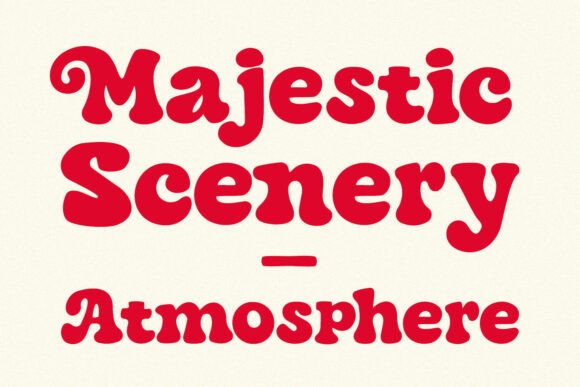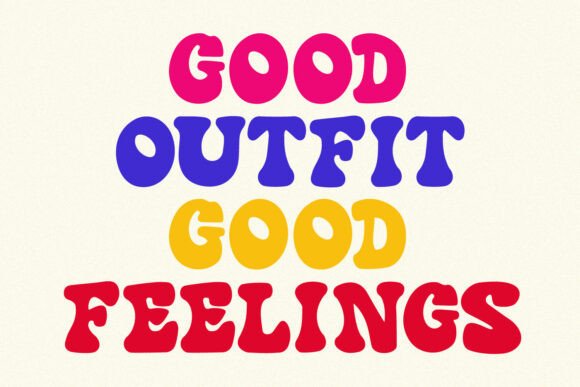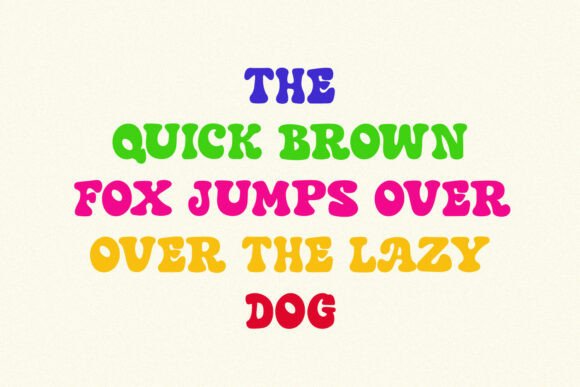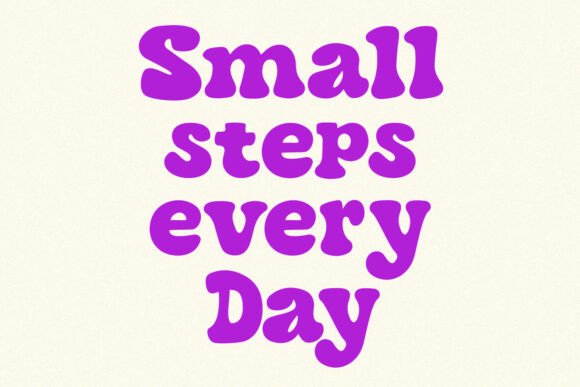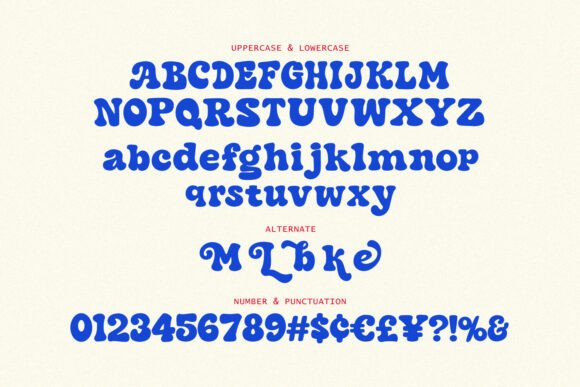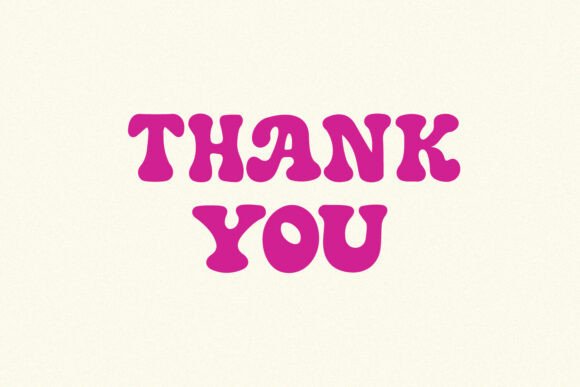
Introduction to Mie Lobak Font
Step back into the groovier days with Mie Lobak, a playful retro slab serif font designed to bring a burst of nostalgic energy to your creative projects.
Crafted by Maulana Creative, this font features thick, chunky strokes and whimsical curves that capture the fun and funk of the 1960s and 70s Its bold, high-contrast personality makes it perfect for eye-catching headlines, vintage posters, trendy designs, and brand identities that donโt take themselves too seriously.
Key Features of Mie Lobak Font
Why Choose Mie Lobak Font?